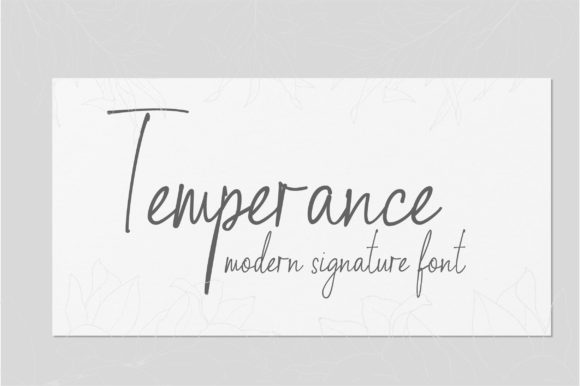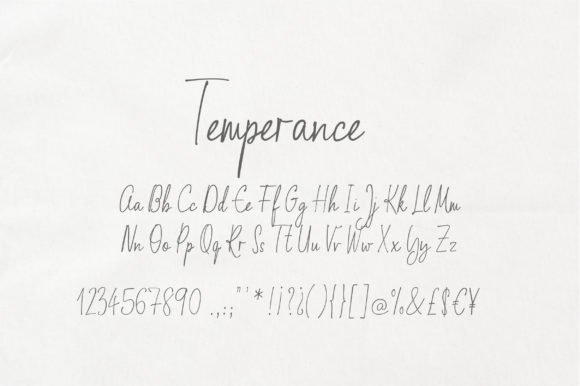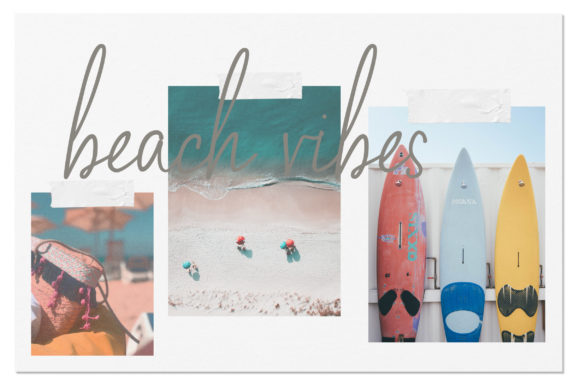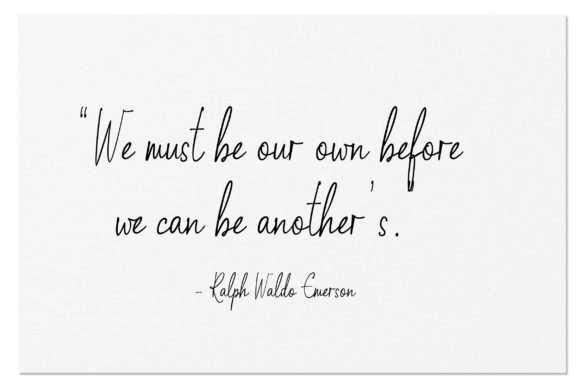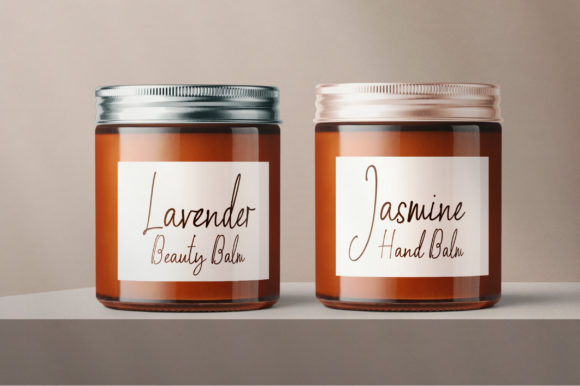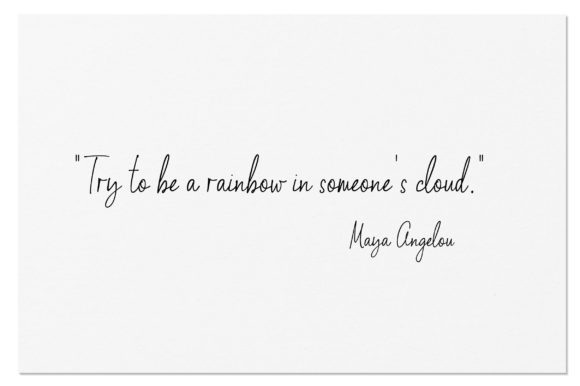
Temperance Font
About Temperance Font
Temperance is a thin lettered and delicate script font. No matter the topic, this font will be an incredible asset to your fonts’ library, as it has the potential to elevate any creation.